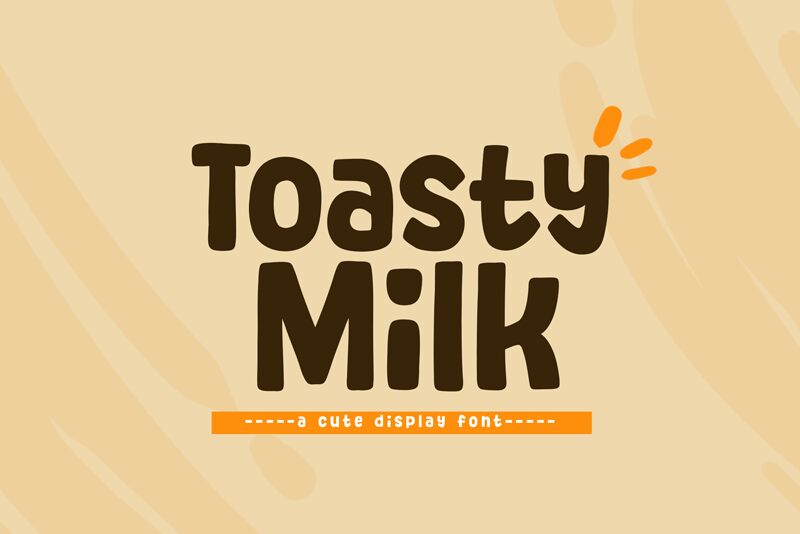
Toasty Milk font is the perfect name for this soft, pudding-like cartoon font designed by experienced author Khurasan. Bold and thick characters form a playful presentation that appears lighthearted and friendly. It’s a visually balanced and easygoing typeface with smooth rounded shapes; the overall experience of its use is calming, approachable, and casual.
This free cartoon display font suits recreational use in titles for children’s comic books, animation projects for kids, gaming apps, product advertisements (especially food), branding for toy companies or pharmaceutical products (medication syrups), storybooks publications, homeschooling material ideas, etc.